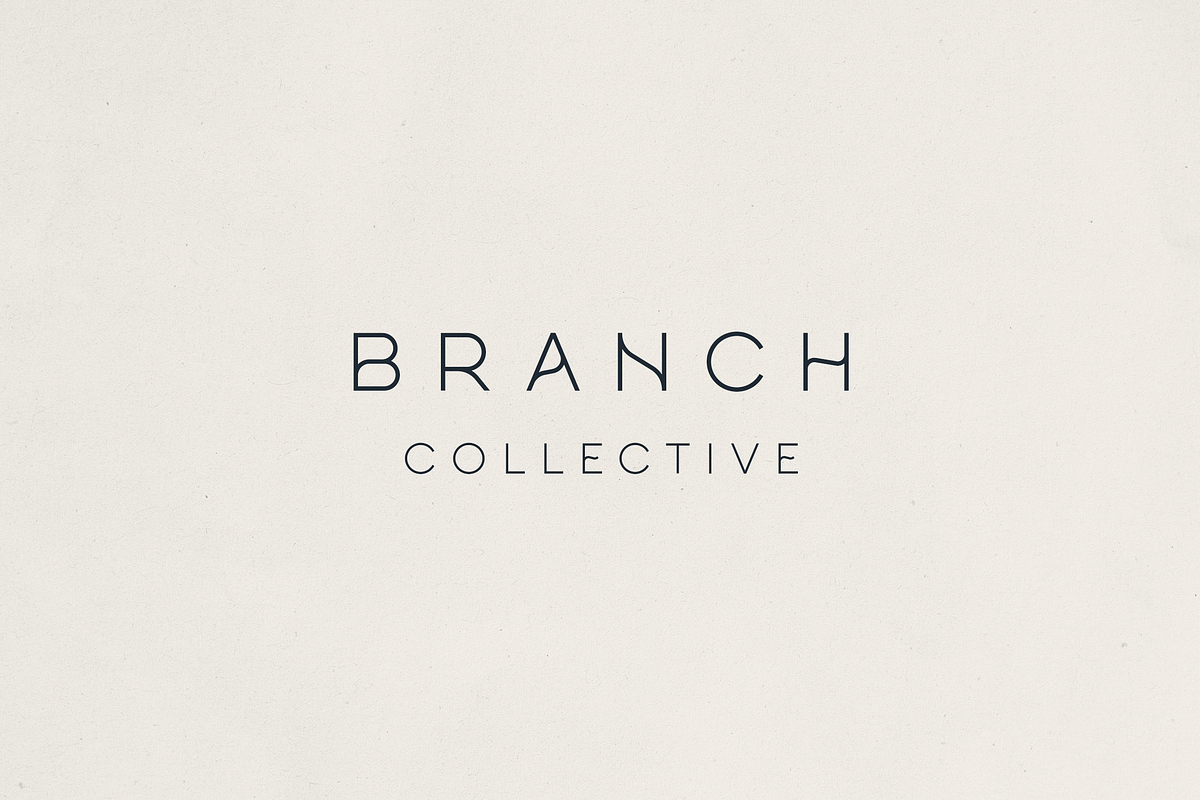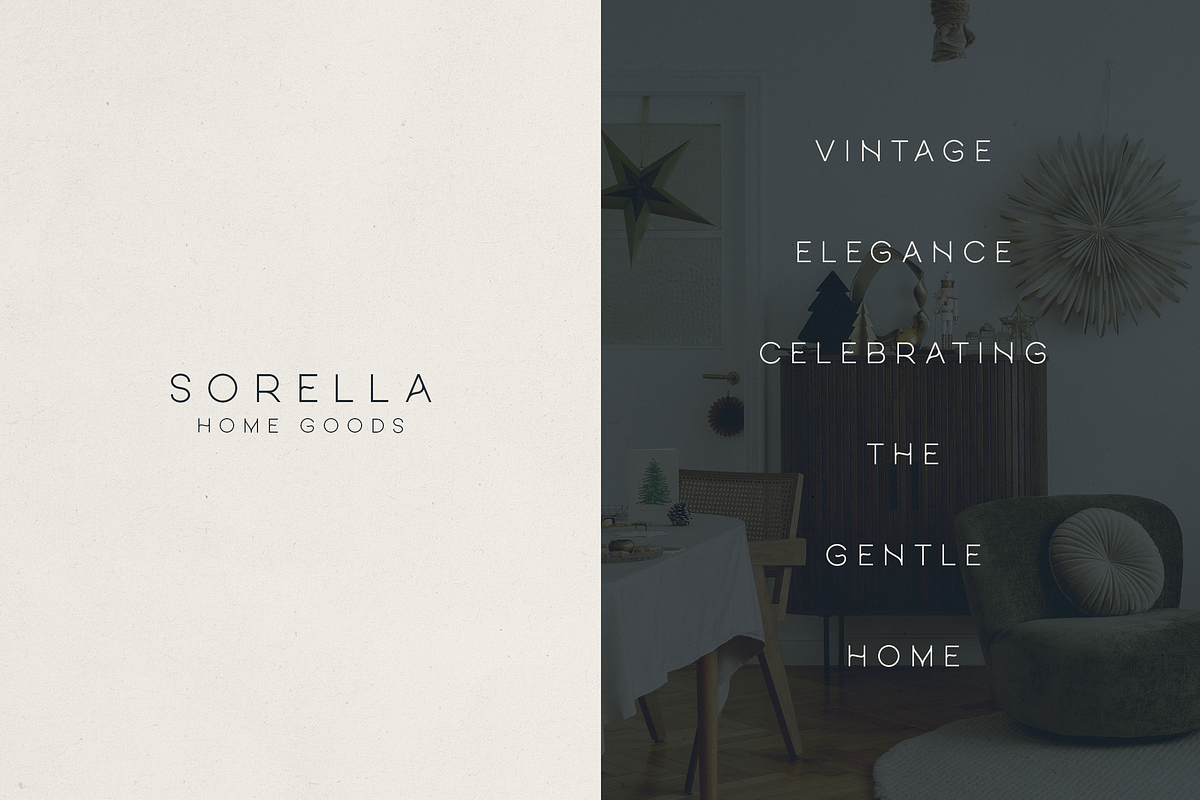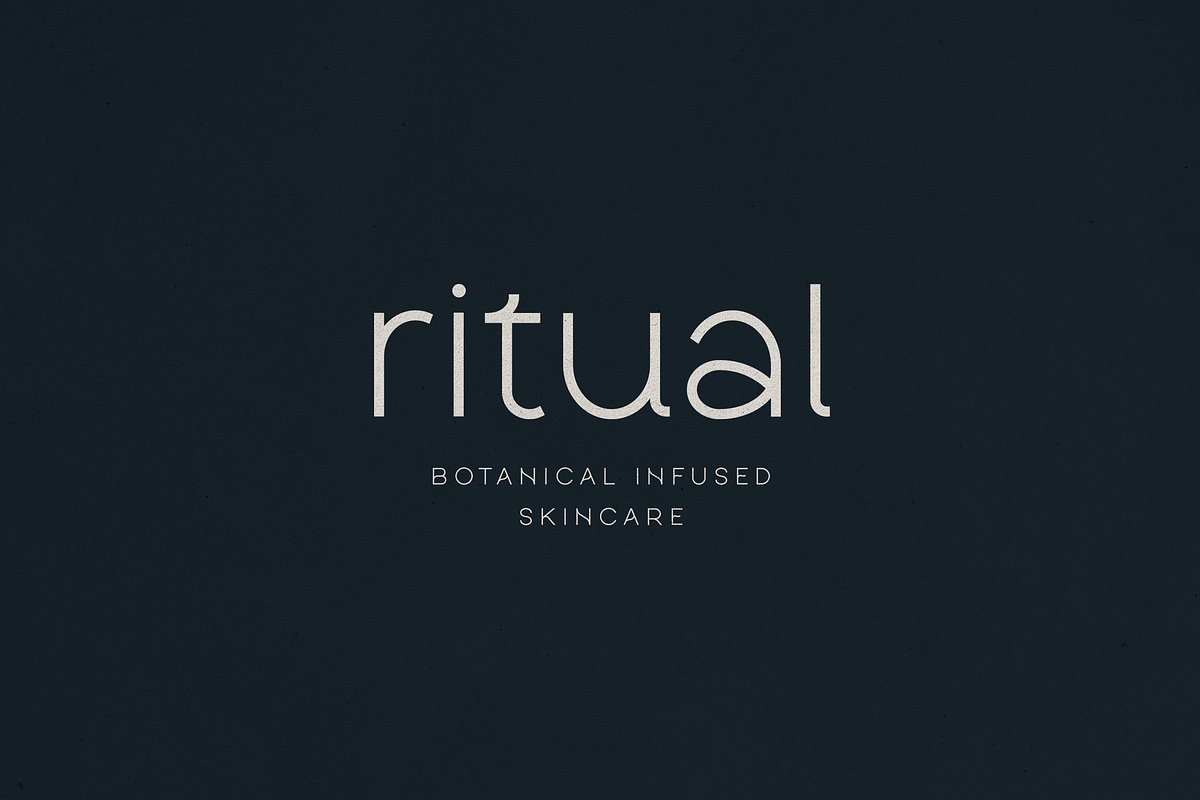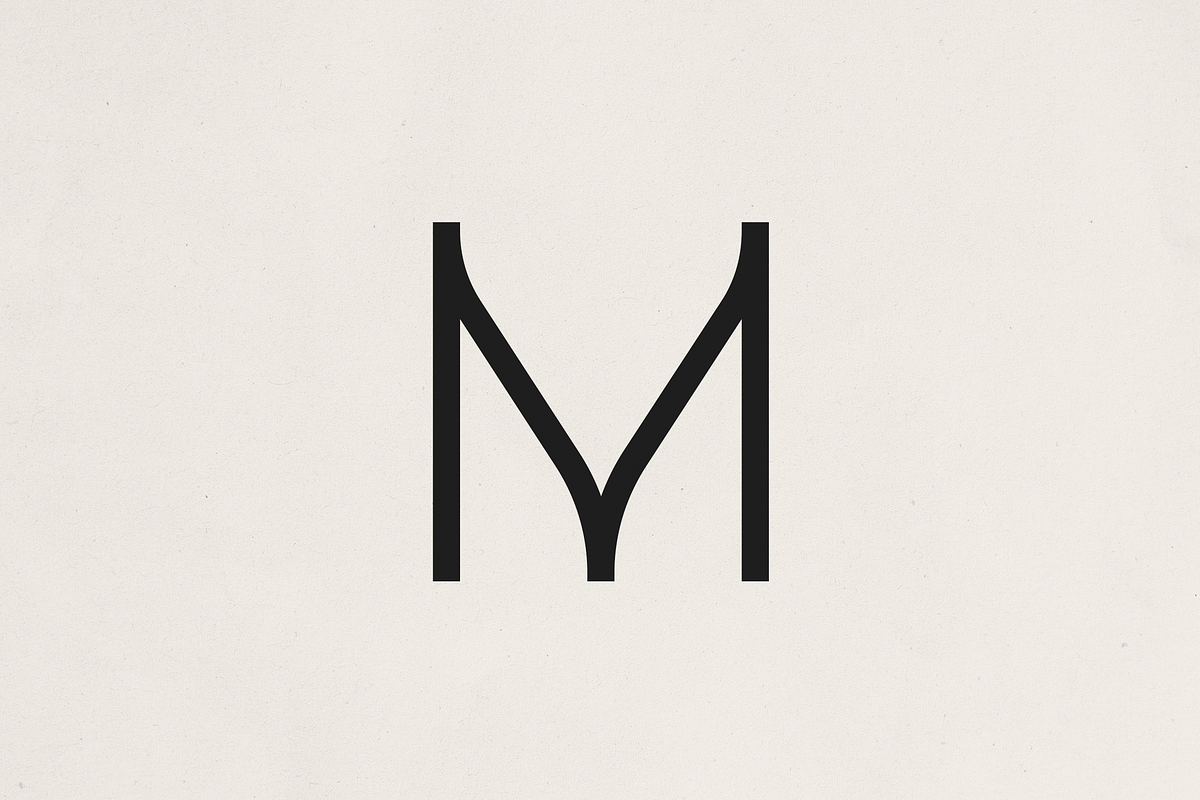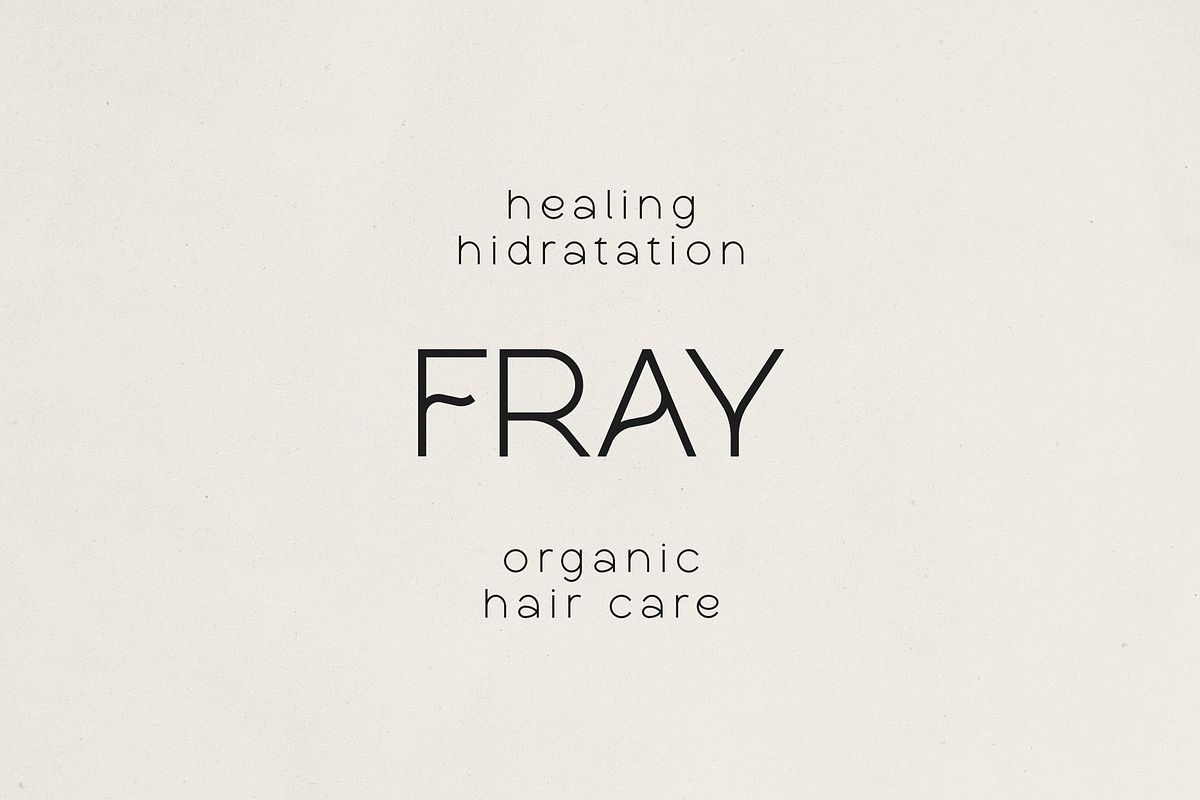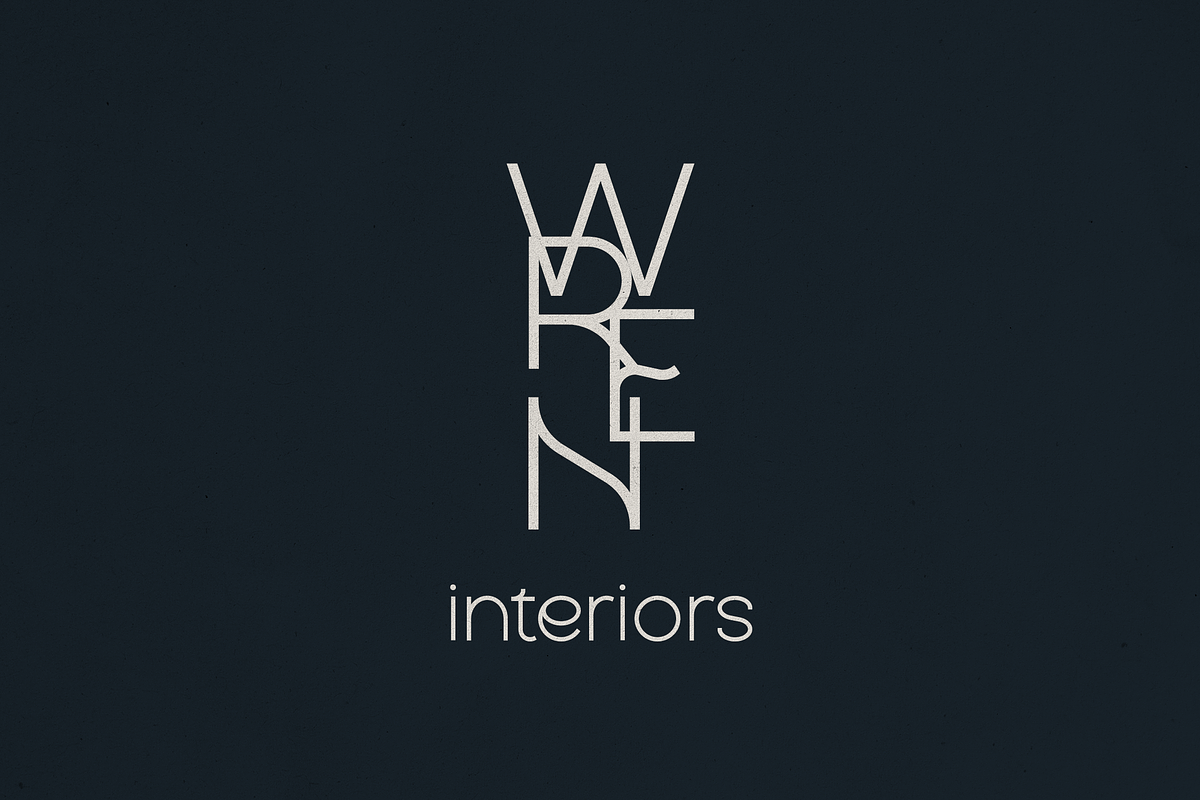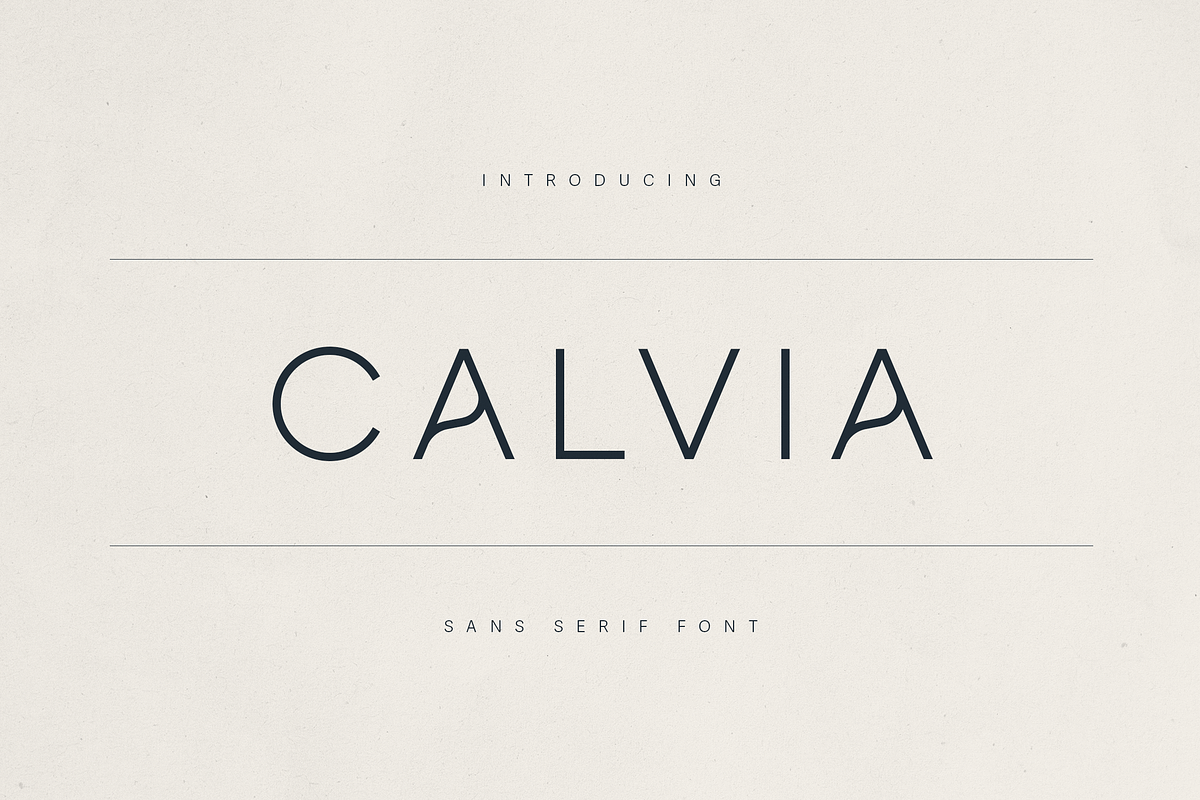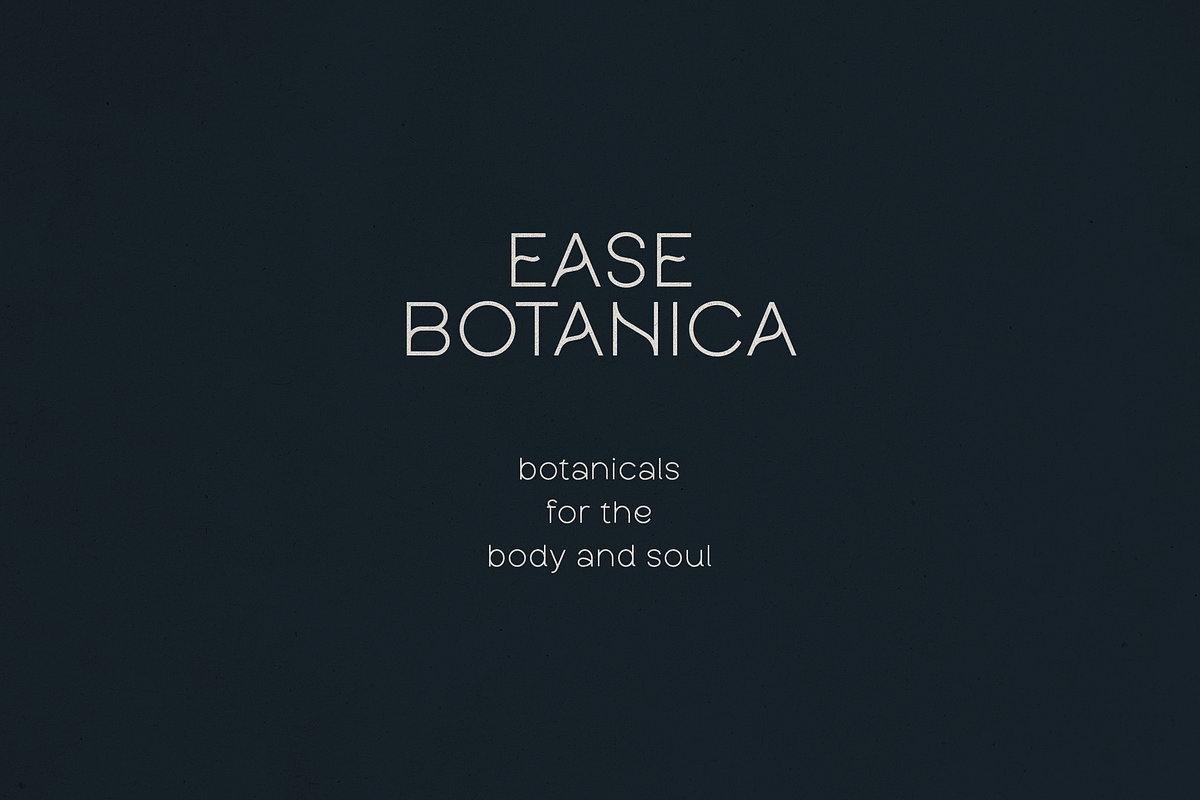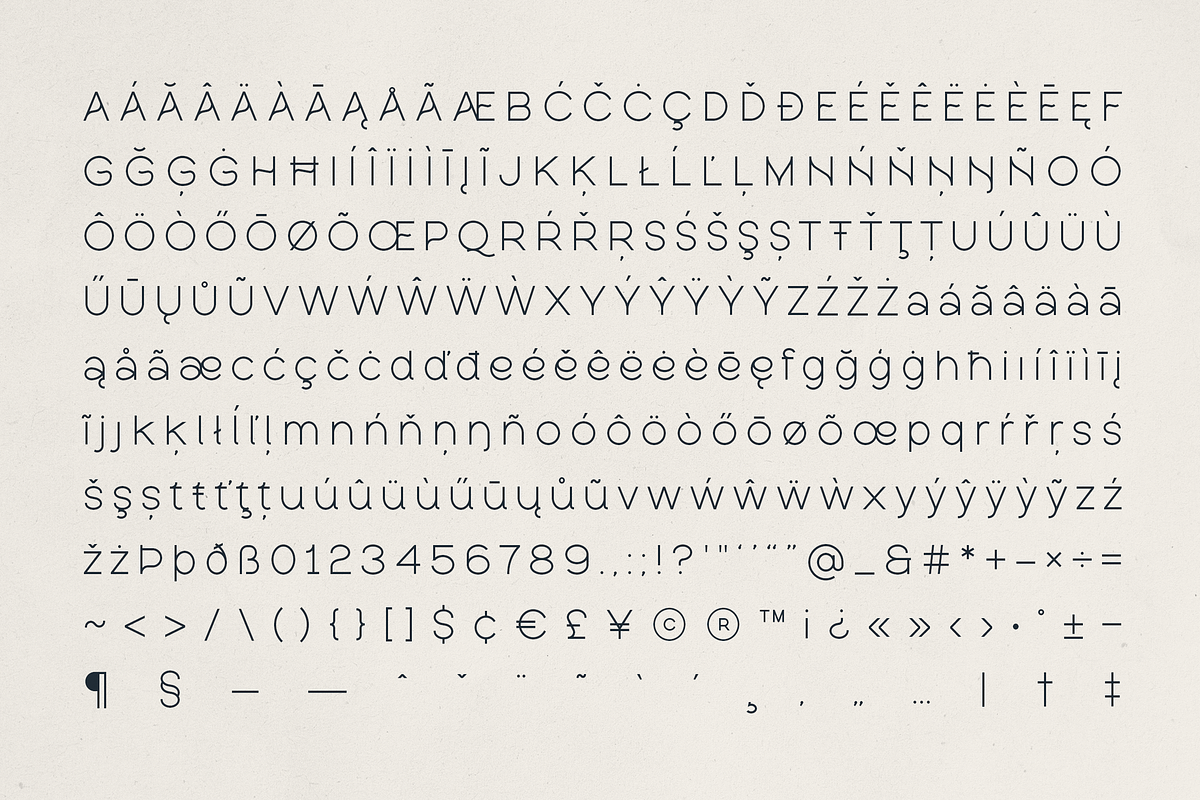
Calvia – Minimalist Sans Serif Font
Calvia – Elegant Minimalist Sans Serif Font
Calvia is a modern sans-serif typeface designed for brands that value clarity, elegance, and quiet confidence. With smooth curves, clean lines, and subtle character quirks, Calvia is perfect for lifestyle brands, interior design studios, skincare products, home goods, and modern editorial layouts.
Inspired by Scandinavian simplicity and timeless typography, Calvia is crafted to bring a sense of calm and sophistication to any design. Its versatile letterforms make it suitable for everything from refined logos to serene product packaging, high-end websites, and multilingual branding—supporting over 80 languages.
Whether you’re designing for a wellness label, boutique brand, or creative agency, Calvia adds a touch of finesse with its unique yet unobtrusive style.
- Minimalist sans-serif with elegant geometric structure
- Full multilingual support (Latin + Extended)
- Perfect for branding, editorial design, packaging, and UI
Ideal For:
- Skincare and botanical products
- Interior and lifestyle brands
- Fashion and editorial design
- Luxury packaging
- Modern logo systems